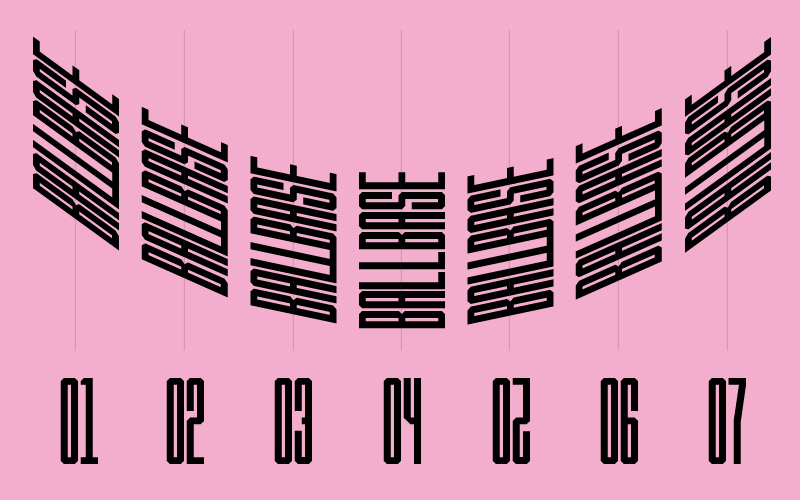
Font name: | Ballbase |
Author: | Steppot |
Note by Steppot | |
Ballbase. Typeface inspired by Baseball. Condenced typeface enabling more letter ons one line. Designed for YesYesNo.me. |